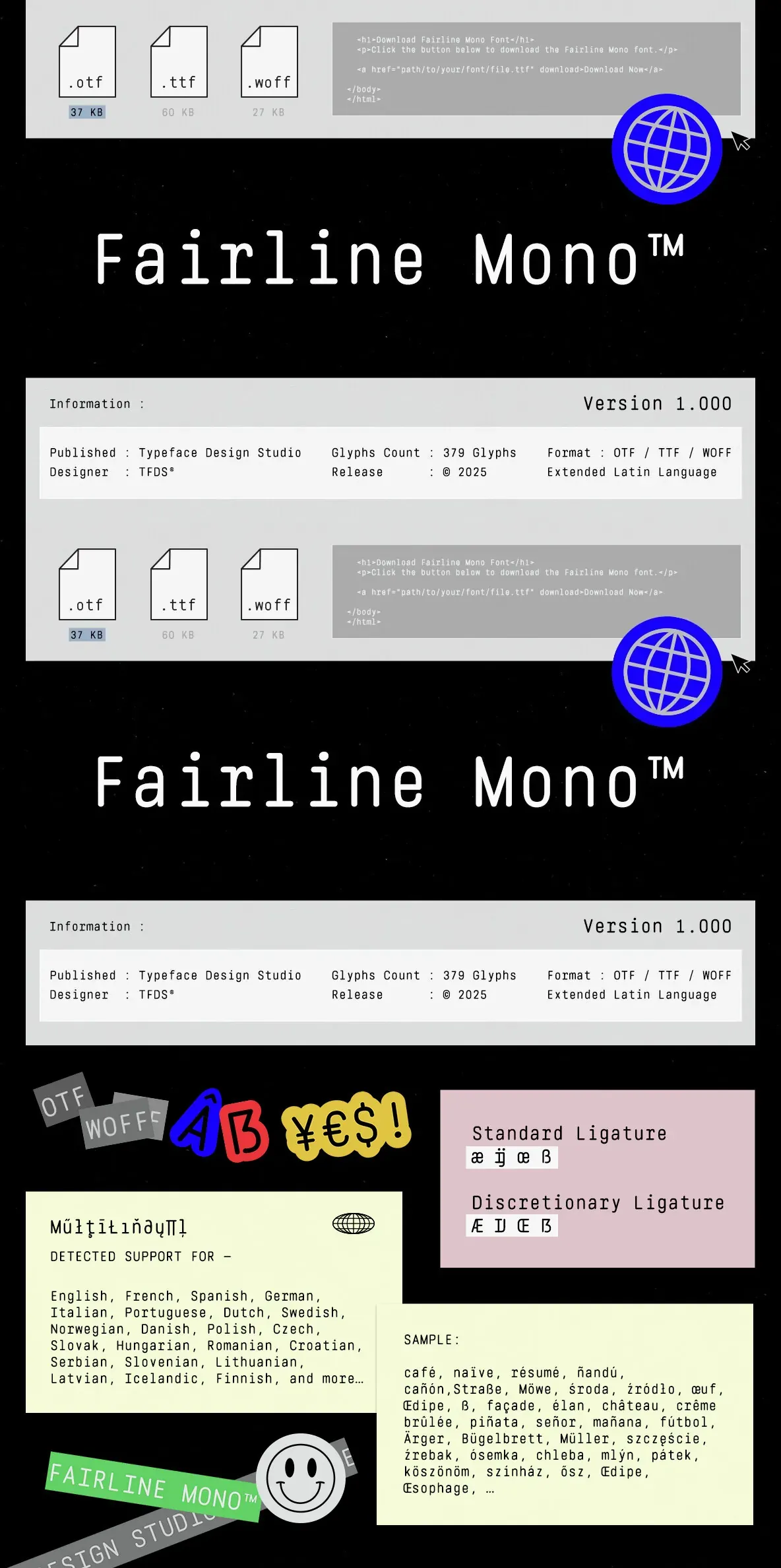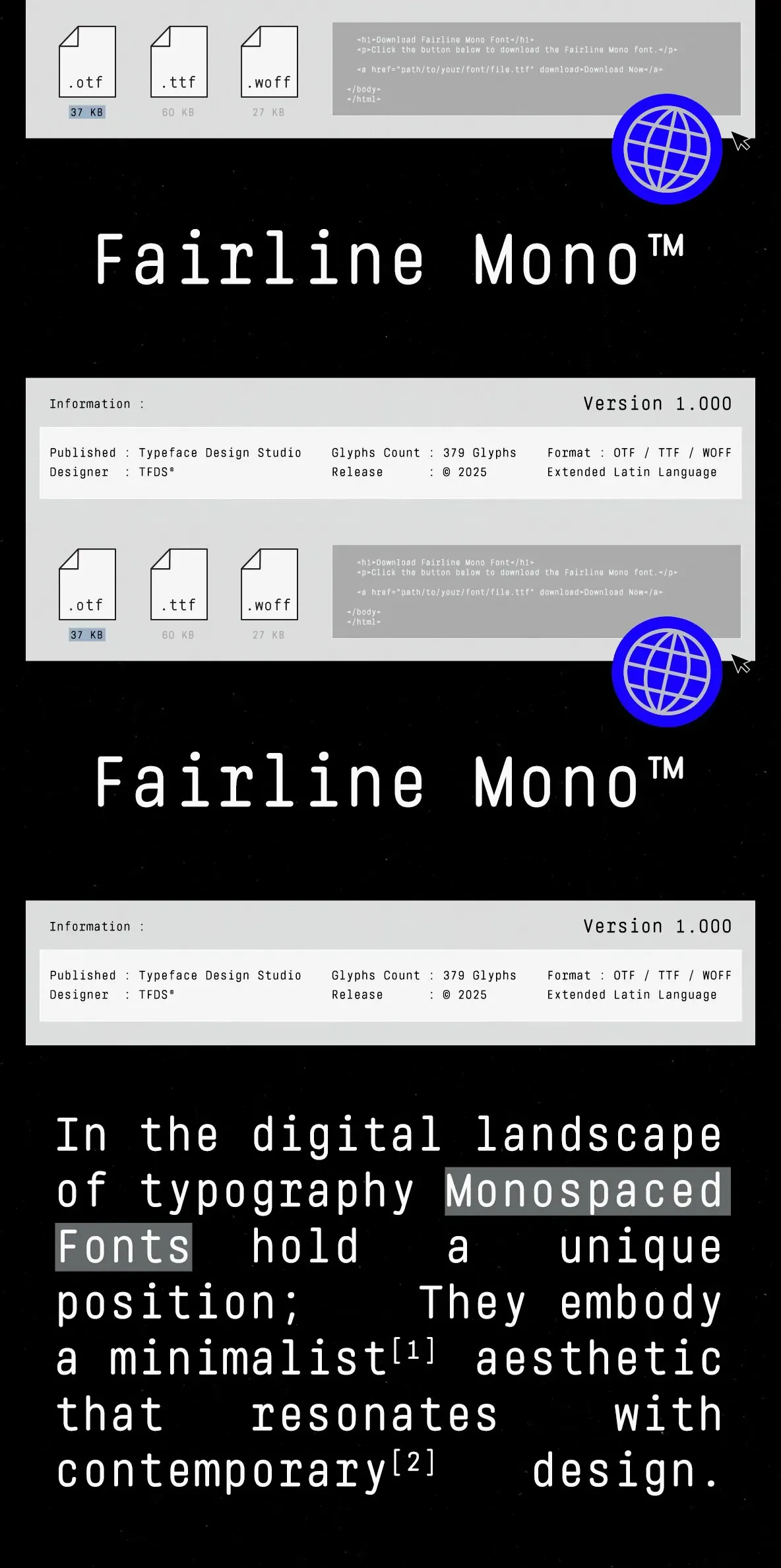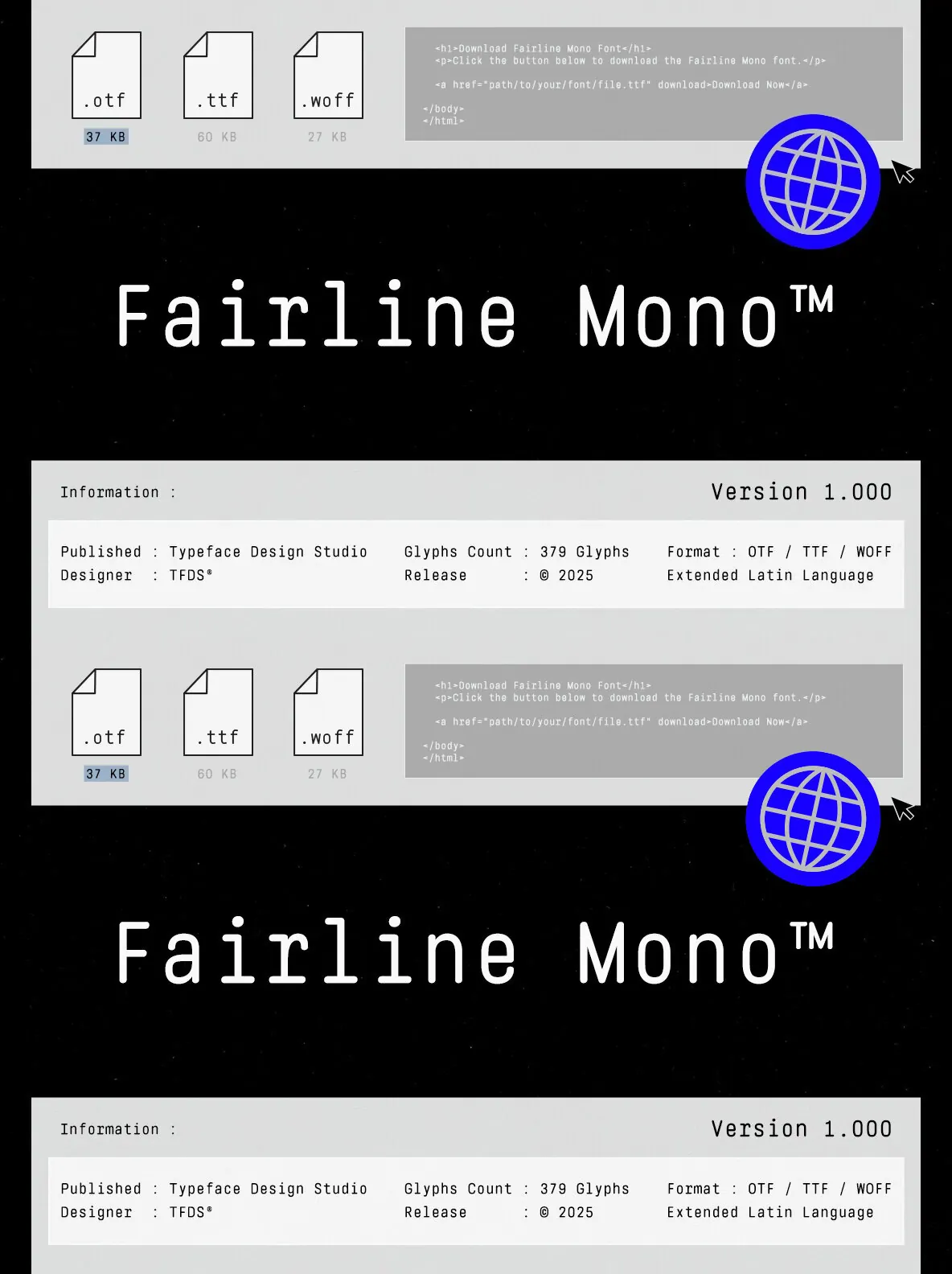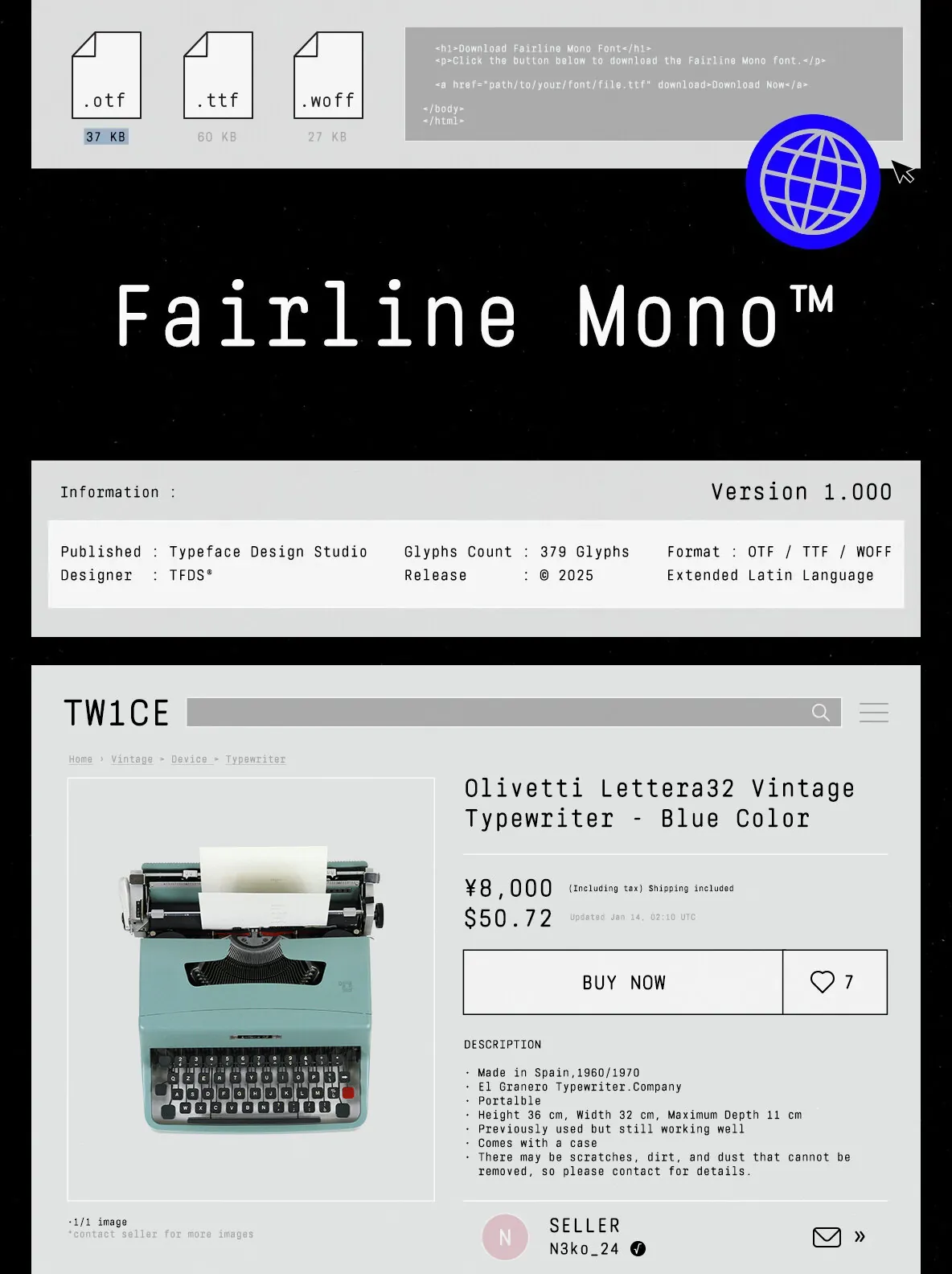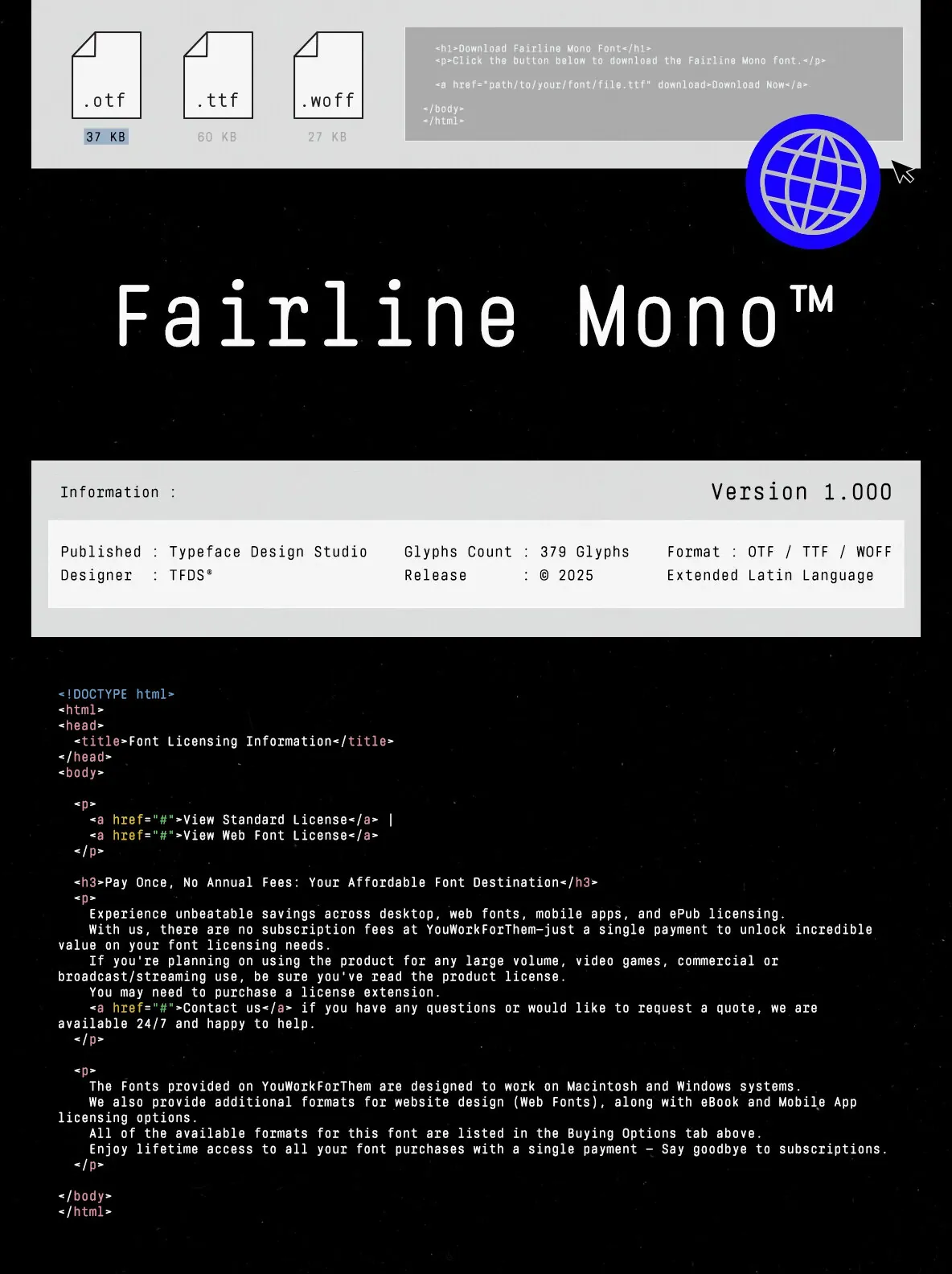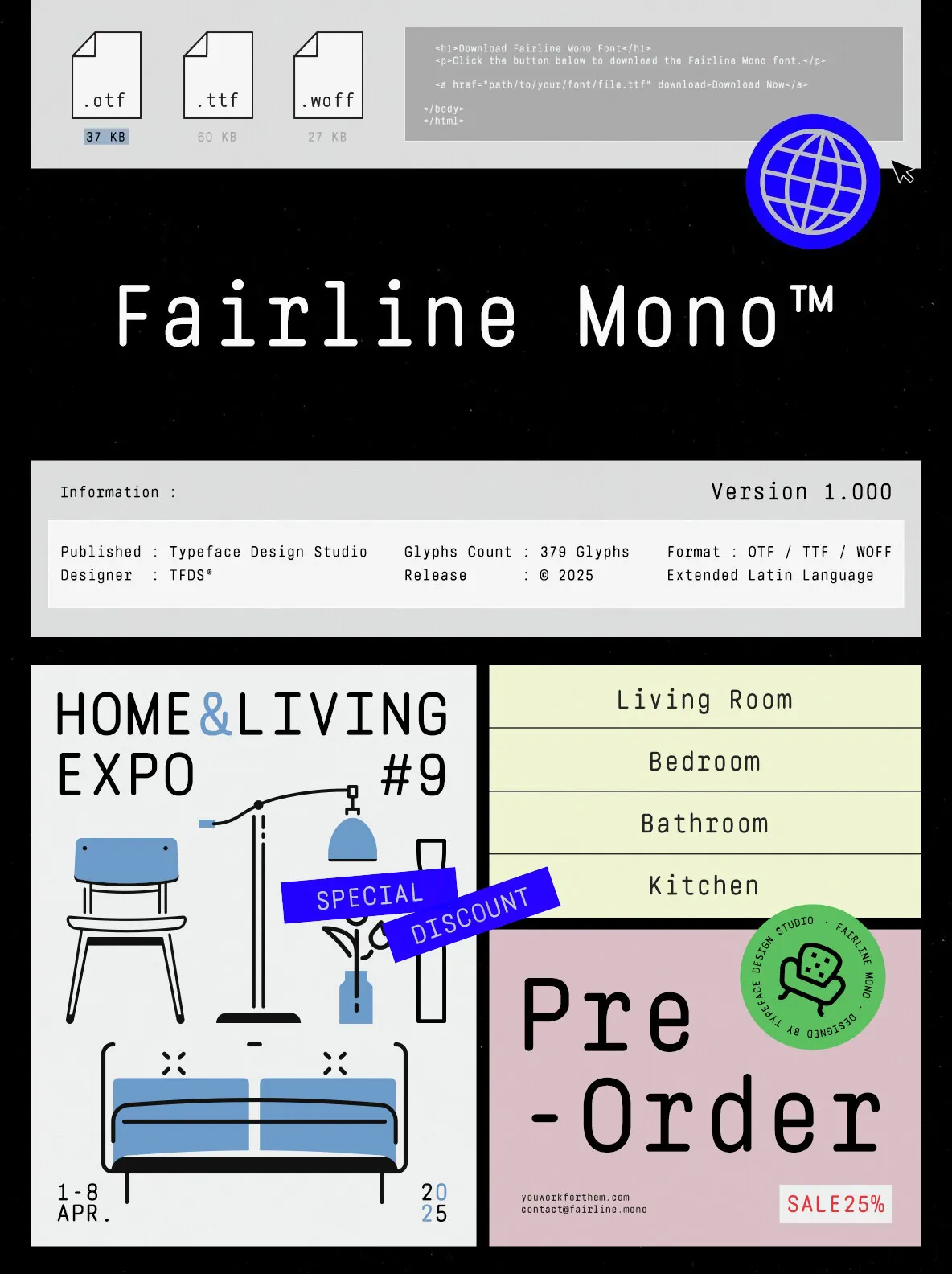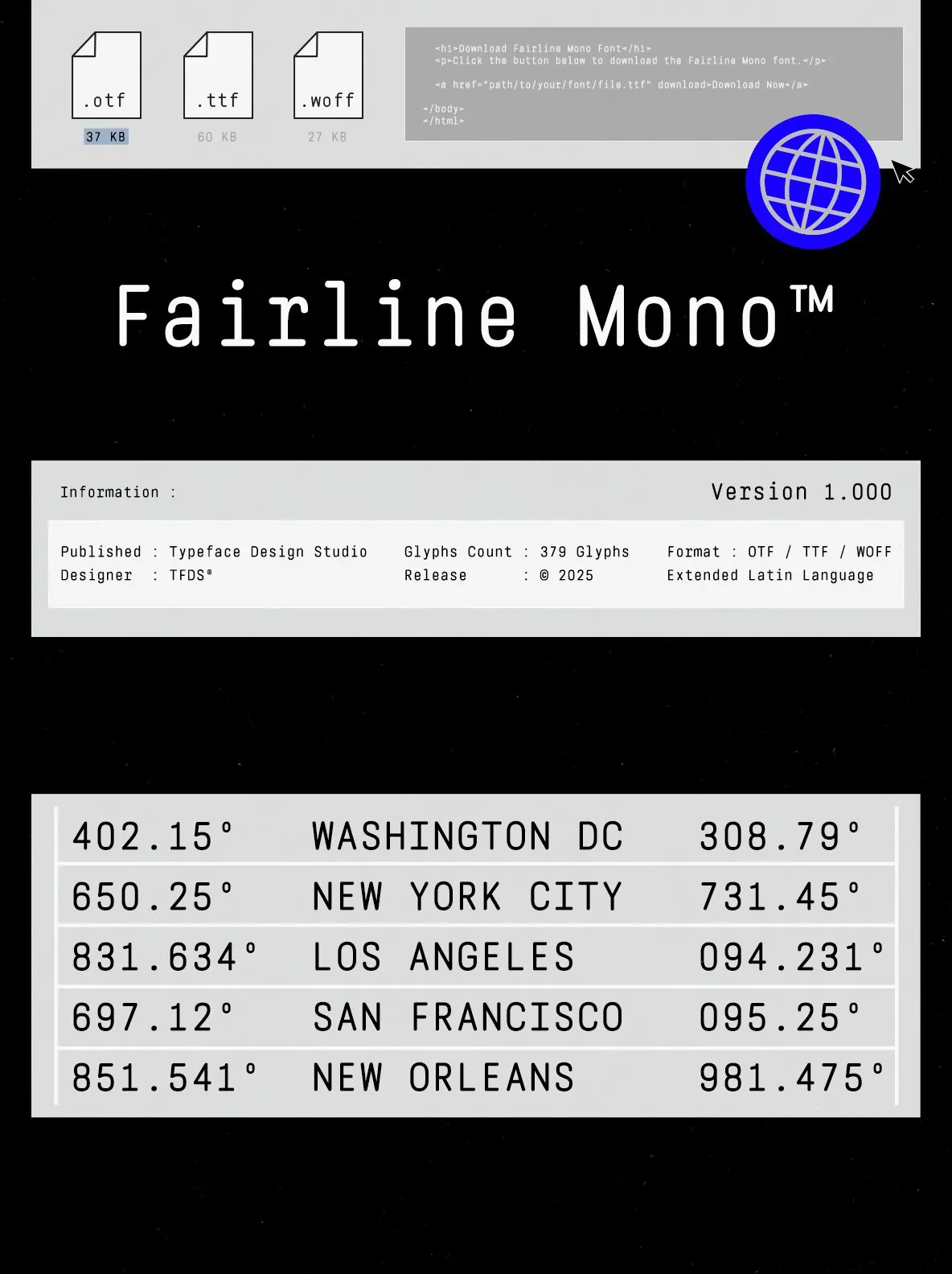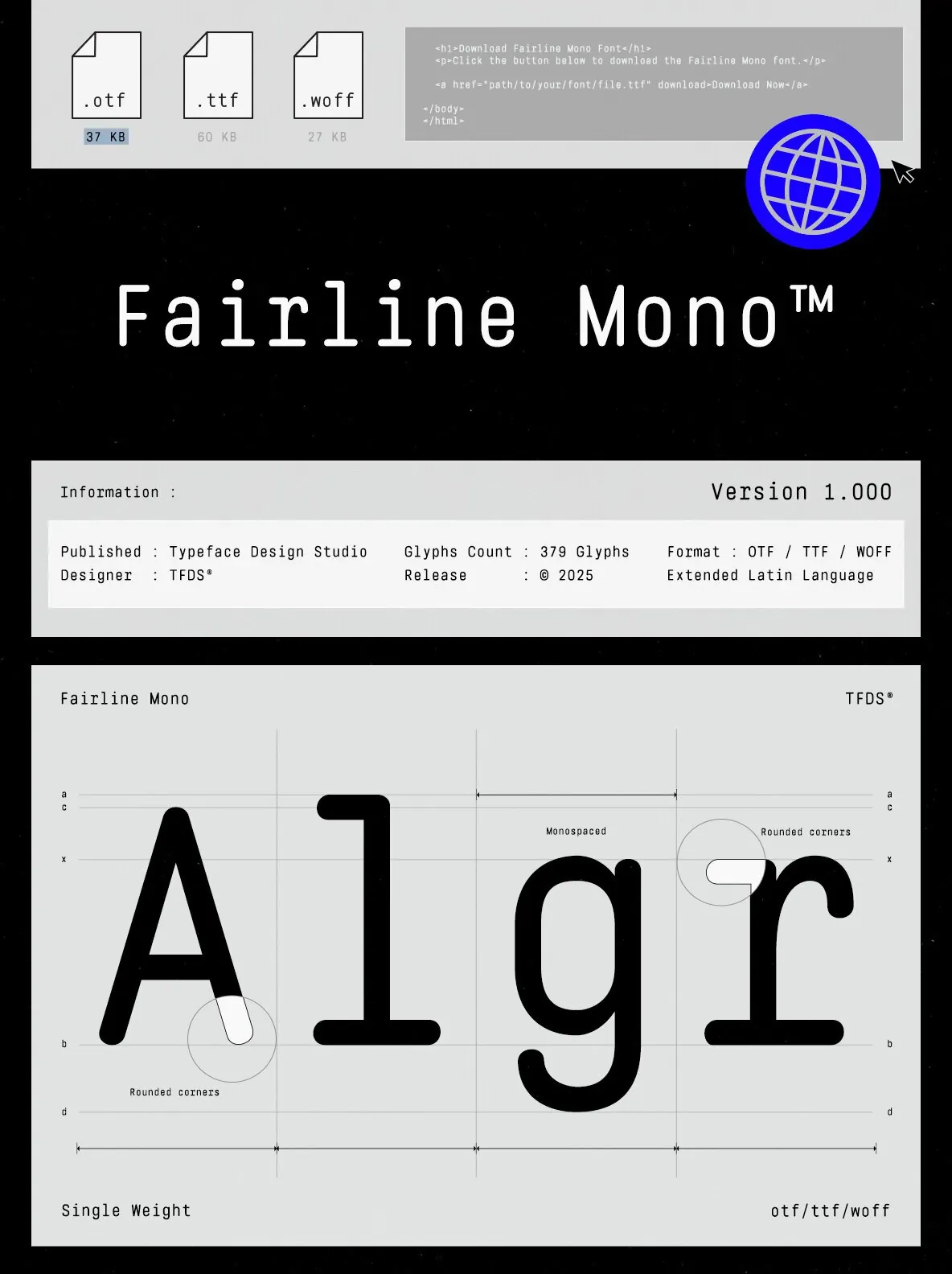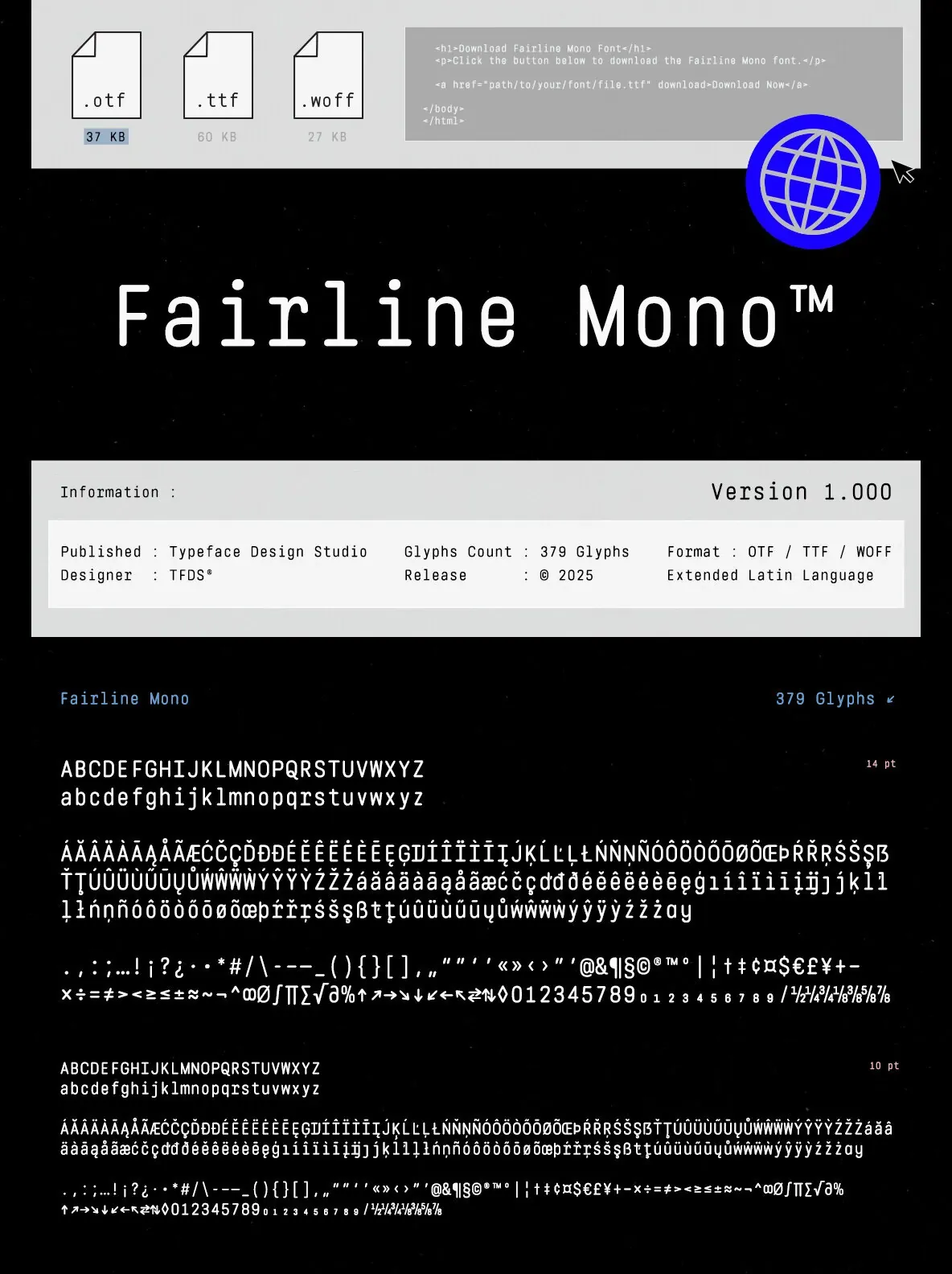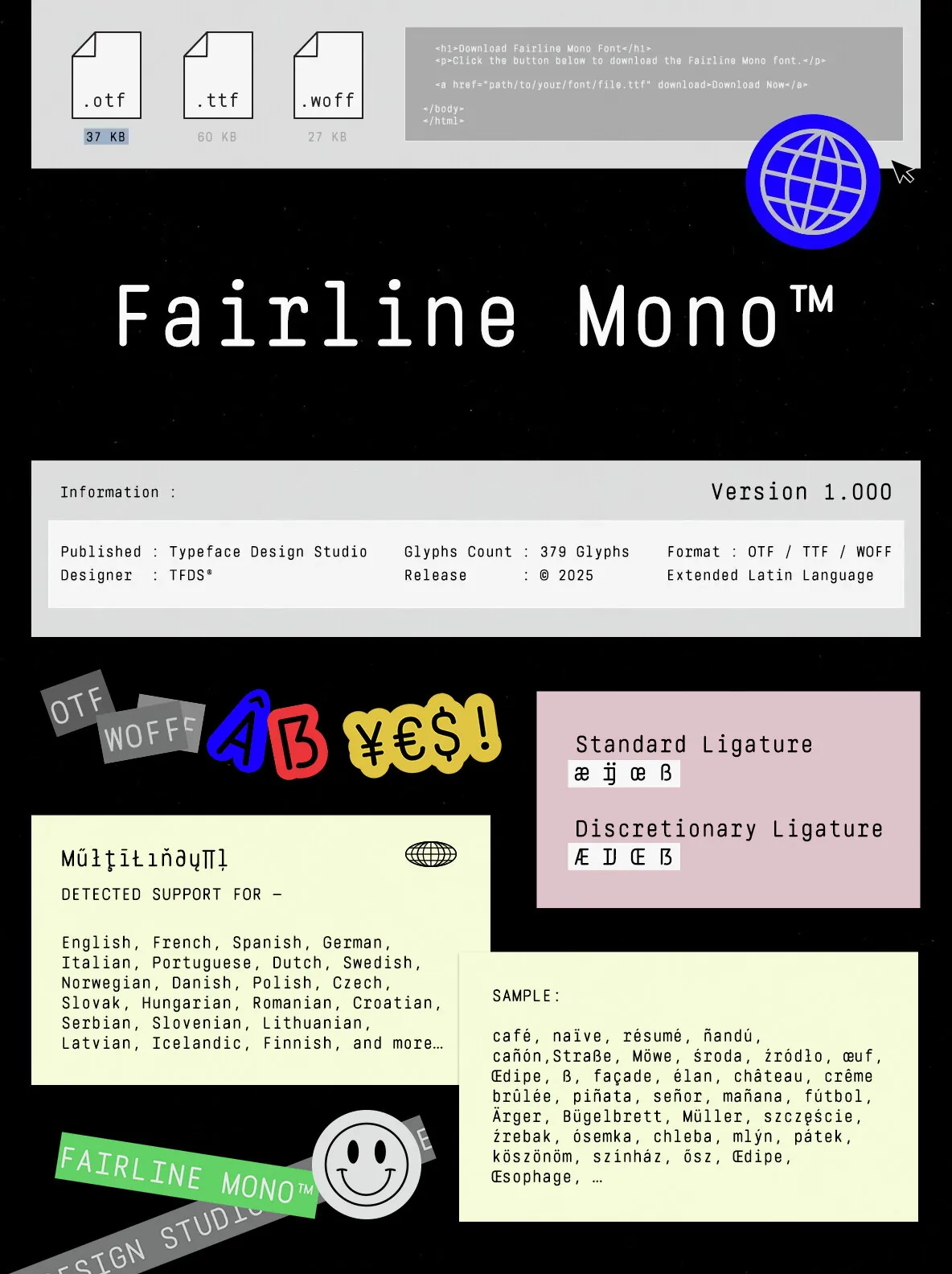
Fairline Mono: A Modern Monospaced Typeface
Fairline Mono stands as a testament to the harmonious blend of contemporary style and the timeless charm of classic monospaced fonts. It has been designed with a focus on clarity and readability, offering digital designers a precise typeface that meets the demands of modern projects. The typeface’s clean lines and optimal spacing ensure it is perfectly suited for programming, data presentation, and contexts where uniformity is essential.
The thoughtful structure of Fairline Mono guarantees crystal-clear legibility across different sizes and resolutions. Each character maintains a consistent stroke weight, lending the typeface a refined and professional look. Its versatility makes it an ideal choice for integrating into diverse projects, ranging from user interfaces to comprehensive branding initiatives. Notably, Fairline Mono includes a distinctive character set that accommodates multiple languages, ensuring its utility in global design contexts.